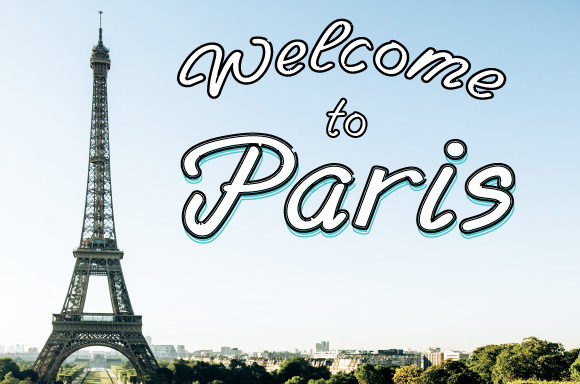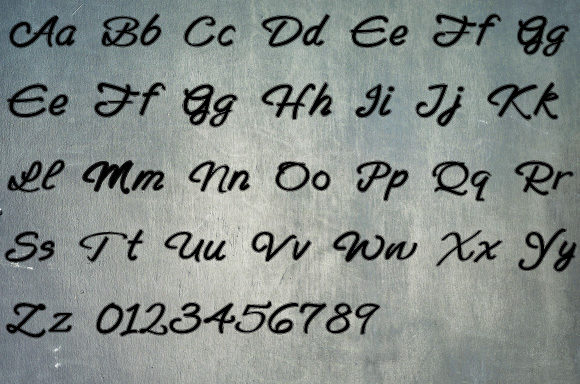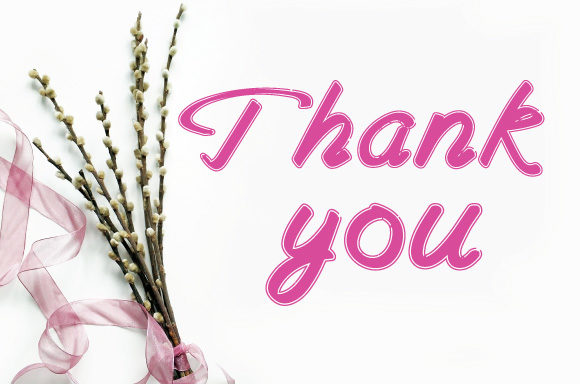
Blinder Font
About Blinder Font
Blinder is a font that exudes style and cleanliness in its handwritten design. With its smooth curves and modern appeal, this font is perfect for fashion branding or editorial designs, adding a touch of sophistication and elegance to your projects.
The stylish and clean handwritten style of Blinder brings a sense of sleekness and refinement to your creations. Each letter carries the artistic and polished touch of handwriting, making your work stand out with a touch of contemporary flair and authenticity.
With Blinder as your creative tool, you have the freedom to explore various design ideas. Whether you’re working on fashion branding or editorial projects, this font adapts effortlessly to bring a sense of versatility and chicness to your work.
Embrace the stylish and clean vibe of Blinder and witness how it elevates your designs, yielding exceptional results. Its smooth curves add a touch of authenticity, making your creations truly captivating and filled with a sense of modern elegance.
Discover the joy of creating with Blinder as your trusted companion. Let its handwritten appearance be the key to unlocking your creativity and infusing your work with a sense of style and sophistication.
Whether you’re designing for fashion or editorial purposes, Blinder is the font that adds that extra touch of flair and refinement to your creations. Add Blinder confidently to your projects, and you will be delighted by the stunning outcomes it brings.
Let Blinder be the font that sparks your inspiration and enhances your designs with its stylish and clean appeal. Experience the magic of Blinder and witness how it elevates your creative projects, making them truly exceptional and filled with a sense of chicness and elegance.